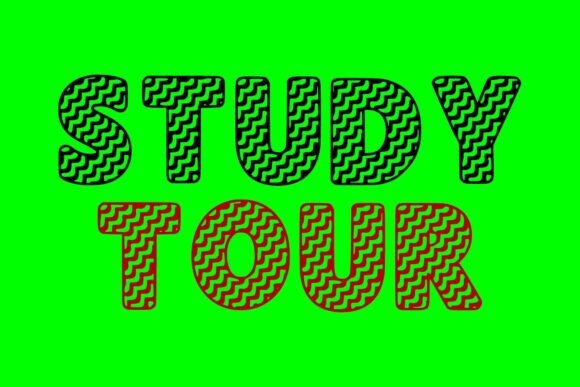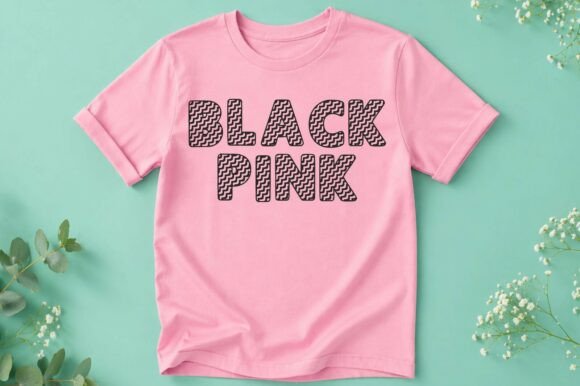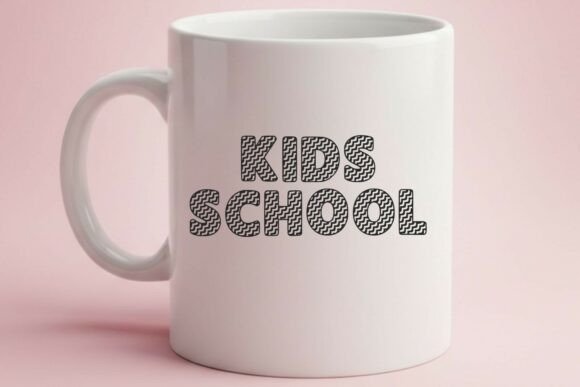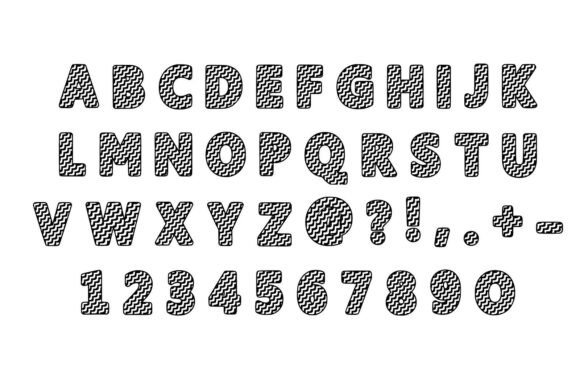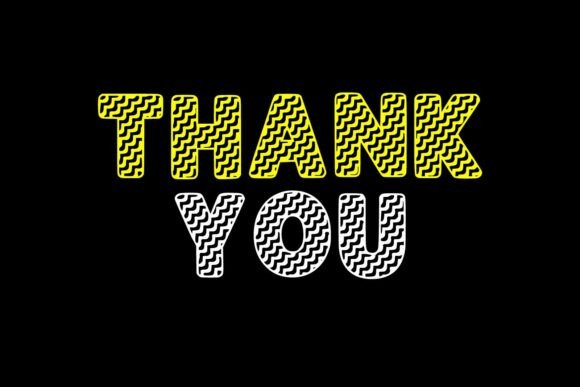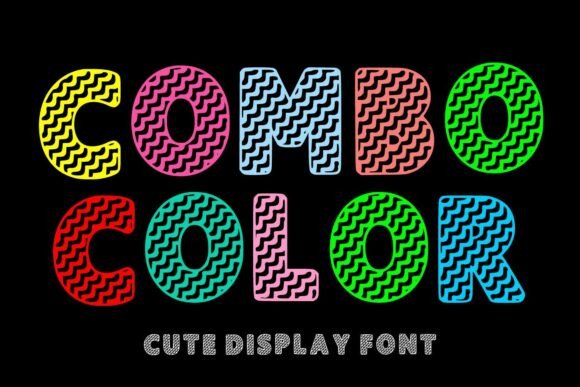
Introducing Combo Color Font: The Ultimate Choice for Vibrant and Creative Designs
Are you tired of using the same old fonts for your designs? Look no further! Combo Color Font is here to revolutionize your creative projects with its fun and vibrant display font featuring bold rounded letterforms filled with a unique wavy pattern. This colorful and playful style makes it perfect for eye-catching and creative designs that stand out from the crowd.
What Makes Combo Color Font So Special?
Combo Color Font is a one-of-a-kind font that combines bold shapes with decorative patterns, bringing a lively, modern, and artistic touch to any design. Its unique wavy pattern adds a playful twist to traditional fonts, making it ideal for designs that require a bit of personality. Whether you’re working on kids’ projects, posters, branding, logos, packaging, social media graphics, stickers, or cheerful typography, Combo Color Font is the perfect choice.
Combo Color Font is a versatile font that can be used for a wide range of design projects. Designers and crafters will love the font’s playful and artistic style, which adds a touch of whimsy to any design. The font’s bold rounded letterforms make it easy to read, while the wavy pattern adds a decorative touch that’s sure to grab attention.
With Combo Color Font, the design possibilities are endless! Here are just a few ideas to get you started:
- Kids’ projects: Use Combo Color Font to create fun and engaging designs for kids’ books, posters, and educational materials.
- Posters: Create eye-catching posters for events, promotions, or advertising campaigns.
- Branding: Use Combo Color Font to create a unique and memorable brand identity.
- Logos: Design a logo that stands out with Combo Color Font’s bold and playful style.
- Packaging: Add a touch of personality to your product packaging with Combo Color Font.
- Social media graphics: Create engaging social media graphics that grab attention.
- Stickers: Design fun and colorful stickers with Combo Color Font.
- Cheerful typography: Use Combo Color Font to create beautiful and playful typography.
Why Choose Combo Color Font?
So why choose Combo Color Font over other fonts? Here are just a few reasons:
- Unique style: Combo Color Font has a one-of-a-kind style that’s sure to grab attention.
- Versatility: The font can be used for a wide range of design projects.
- Playful and artistic: Combo Color Font adds a touch of whimsy to any design.
- Easy to read: The font’s bold rounded letterforms make it easy to read.
In conclusion, Combo Color Font is the ultimate choice for designers and crafters looking for a fun and vibrant display font. Its unique wavy pattern, bold rounded letterforms, and playful style make it perfect for eye-catching and creative designs that stand out. With its versatility and endless design possibilities, Combo Color Font is a must-have for any designer or crafter looking to add a touch of personality to their designs.